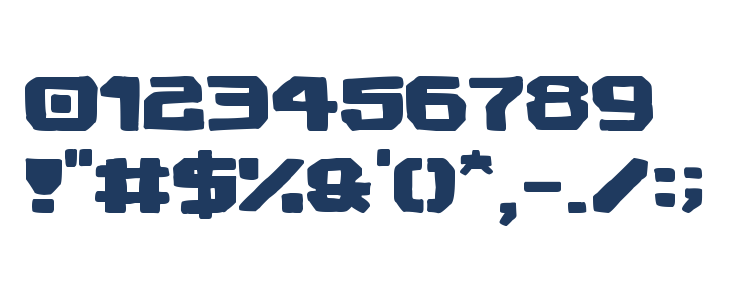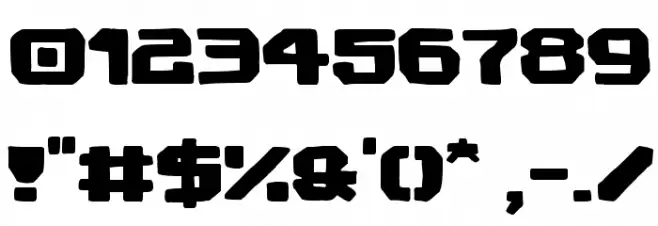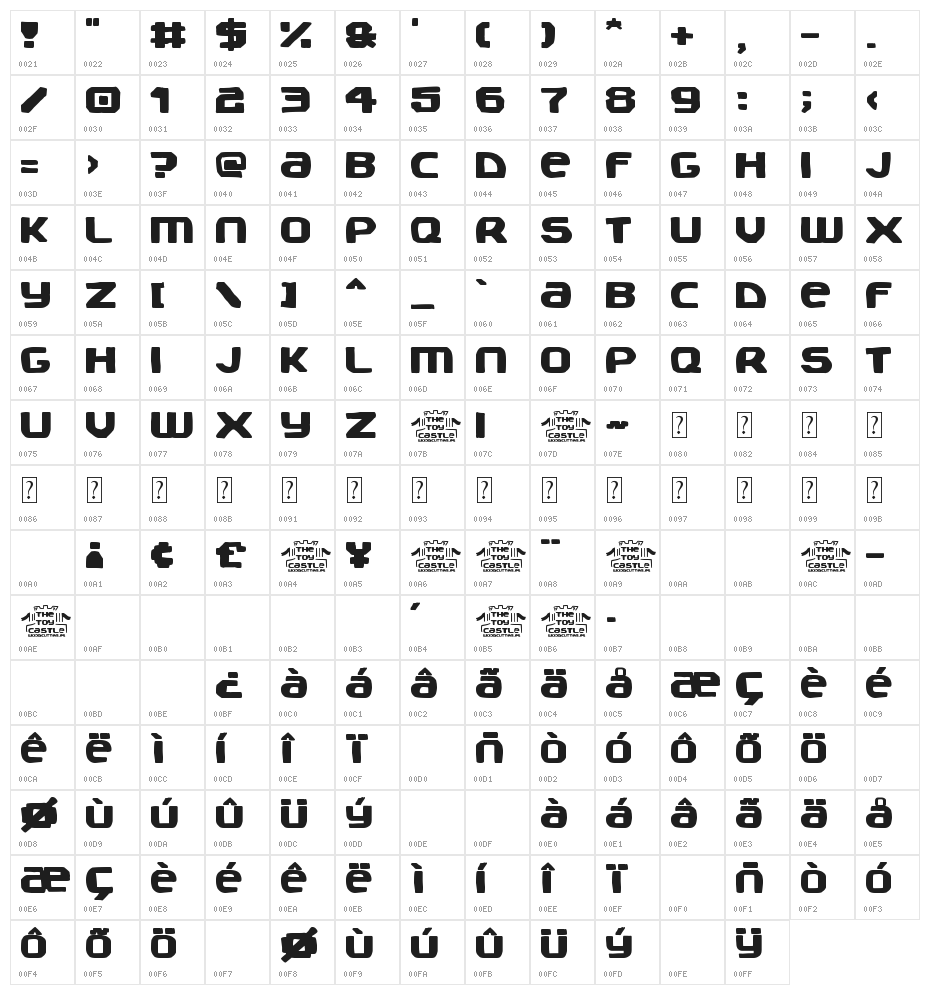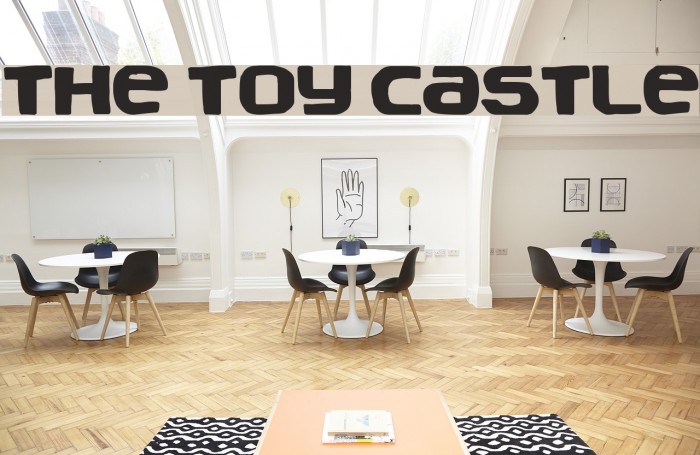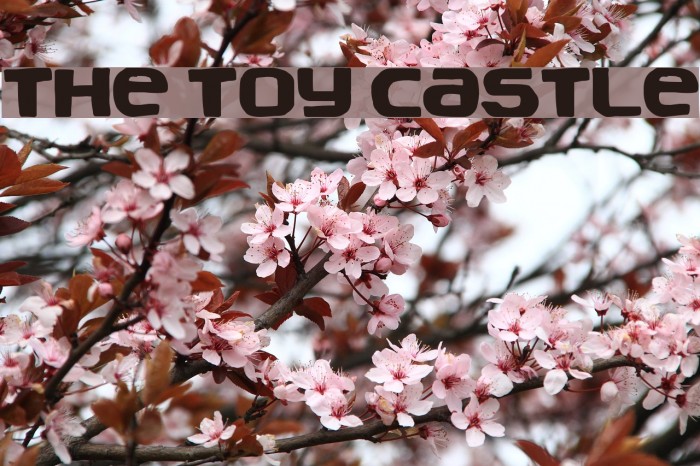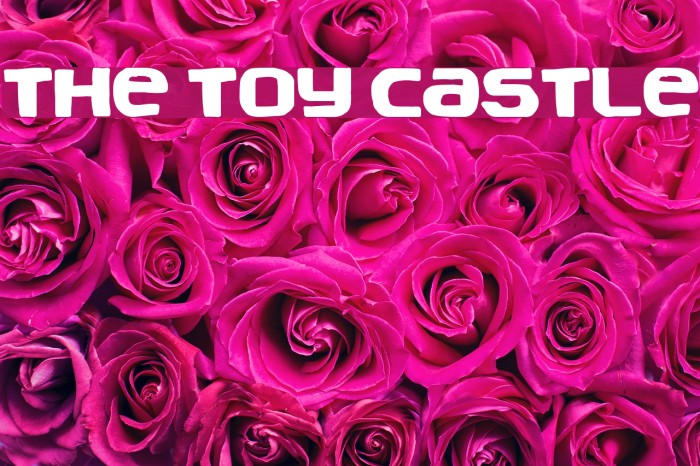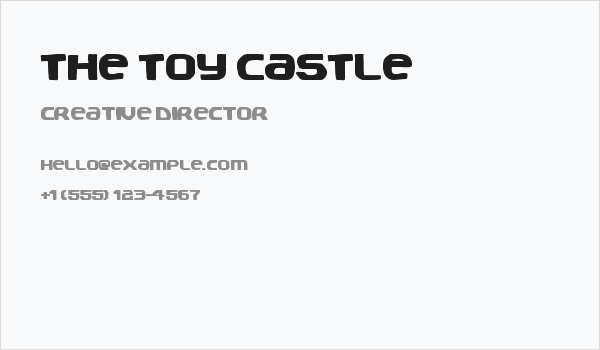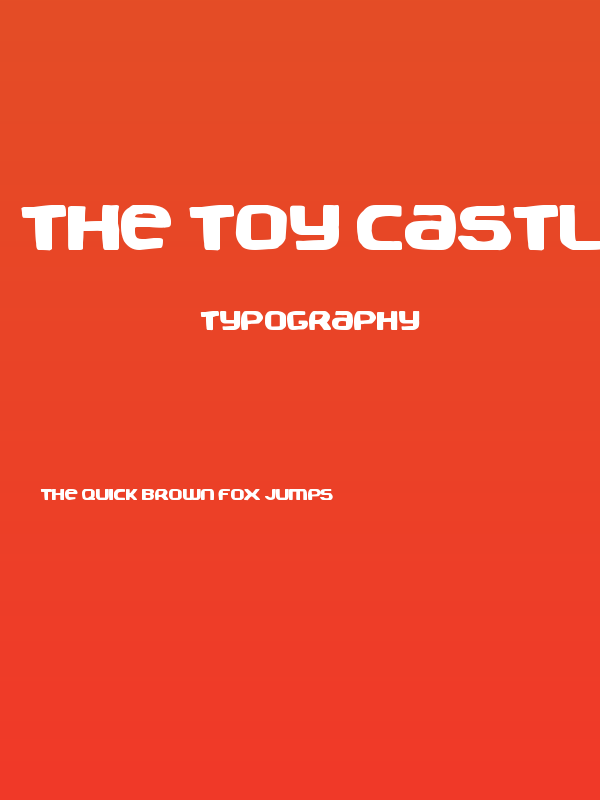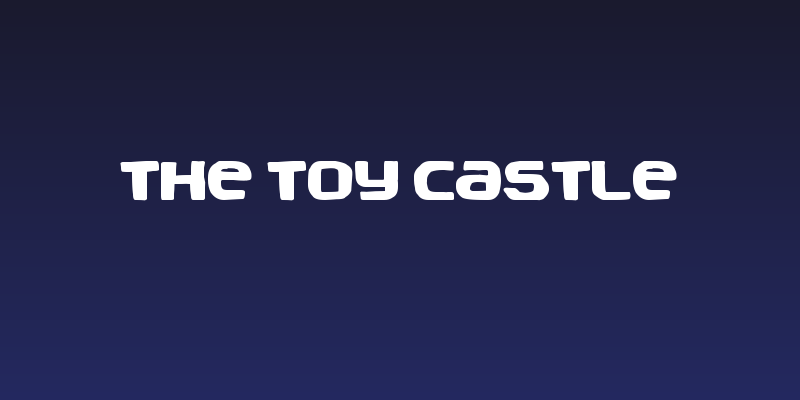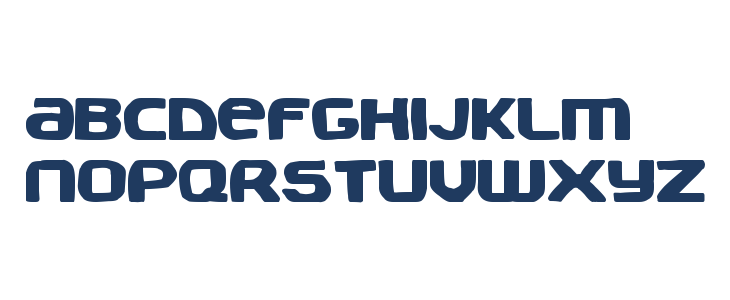
The Toy Castle Font
The Toy Castle Description
This font features a playful and bold design with rounded edges and a slightly blocky appearance. The characters are evenly spaced, providing a clean and organized look. The uppercase and lowercase letters maintain a consistent style, enhancing readability while adding a touch of whimsy. The numbers and special characters follow the same design principles, ensuring uniformity across all glyphs. This font is ideal for projects that require a fun and engaging aesthetic, making it suitable for children's books, playful branding, or creative posters.
| Overall Style | Playful, Fun |
| Proposed Projects | Children's books, playful branding, creative posters, toy packaging. |